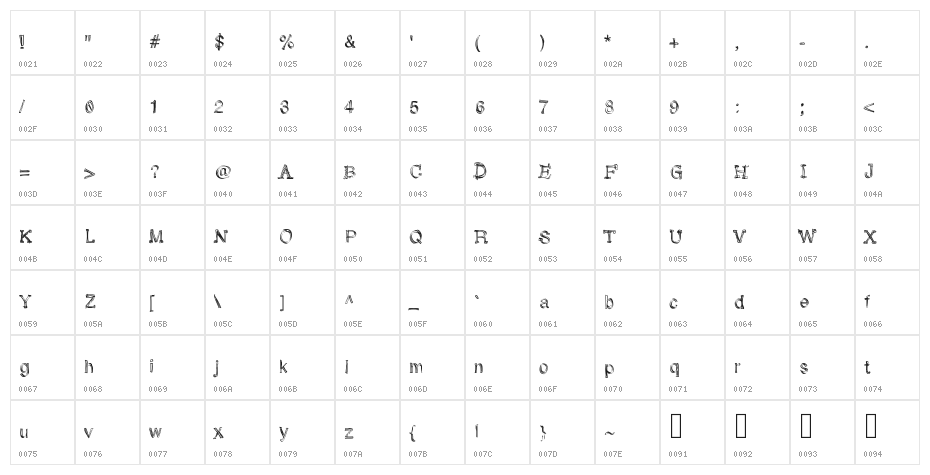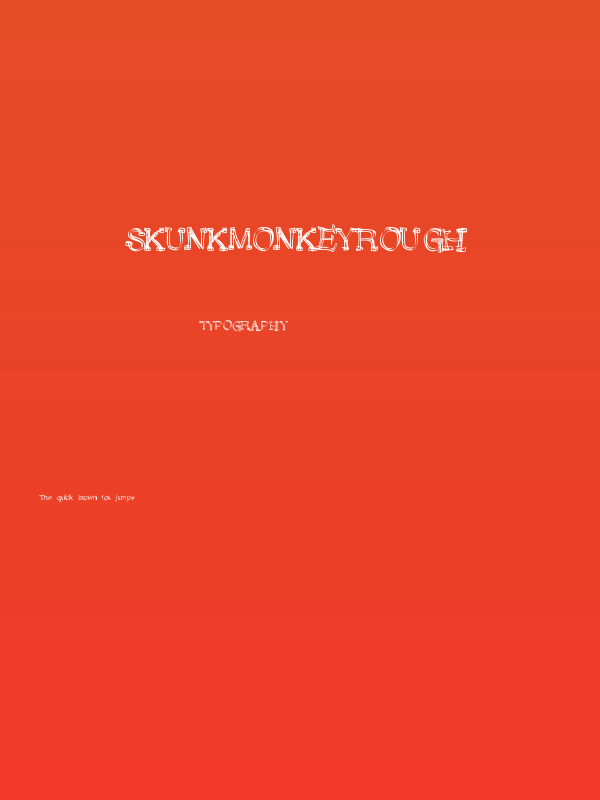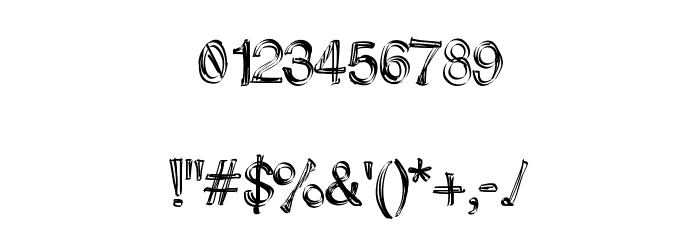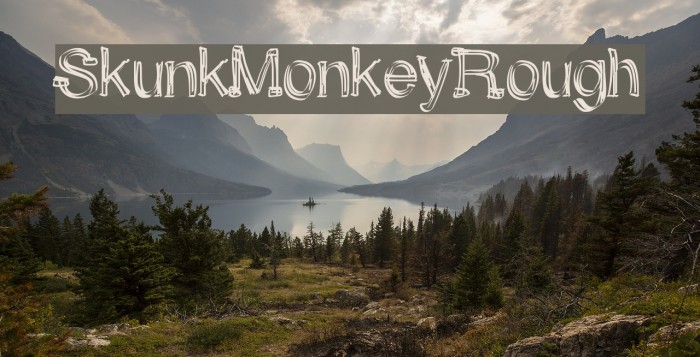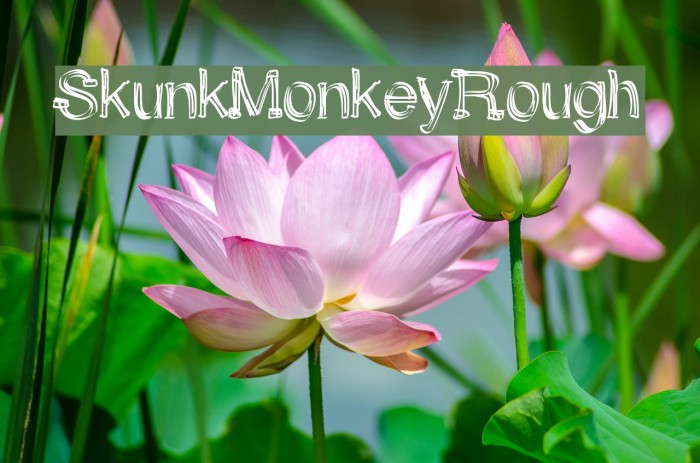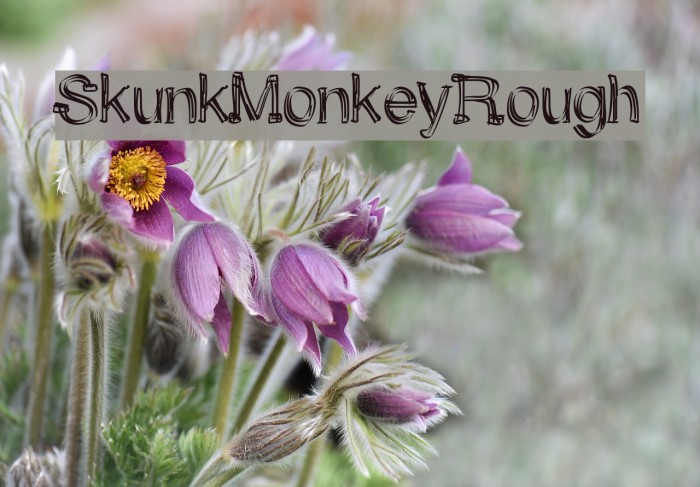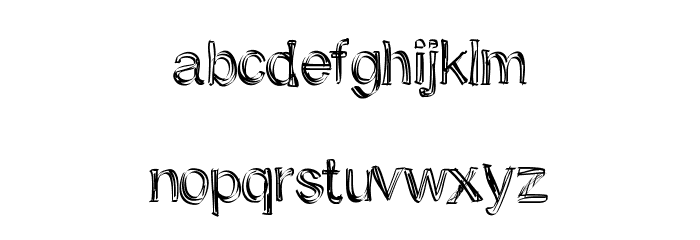
SkunkMonkeyRough Font
SkunkMonkeyRough Description
This font features a playful and rough sketch style, characterized by uneven lines and a hand-drawn appearance. The letters have a whimsical, cartoonish quality, with exaggerated curves and irregular strokes that give it a dynamic and energetic feel. The uppercase and lowercase letters maintain a consistent style, while the numbers and special characters complement the overall design with their quirky and informal look. This font is ideal for projects that require a fun and creative touch, such as children's books, comic strips, or playful branding.
SKUNKMONKEYROUGH UPPERCASE
SKUNKMONKEYROUGH LOWERCASE
SKUNKMONKEYROUGH OTHER CHARS
| Proposed Projects | Ideal for children's books, comic strips, playful branding, and creative posters. |